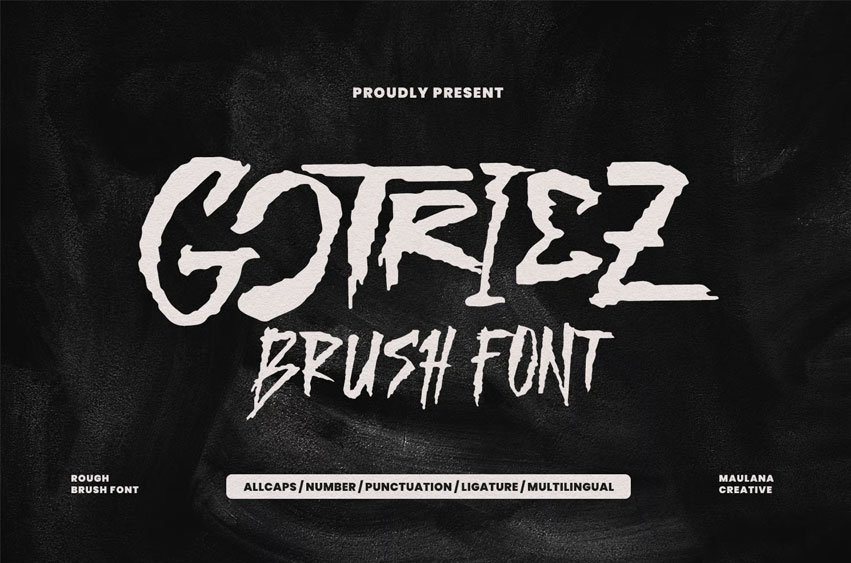
Gotriez Font: Give your designs an authentic, brush handcrafted feel. “Gotriez Handmade Brush Rough Font” is perfectly suited to signature, stationery, logo, typography, quotes, magazine or book cover, website header, flyer, clothing, branding, packaging design, and more.